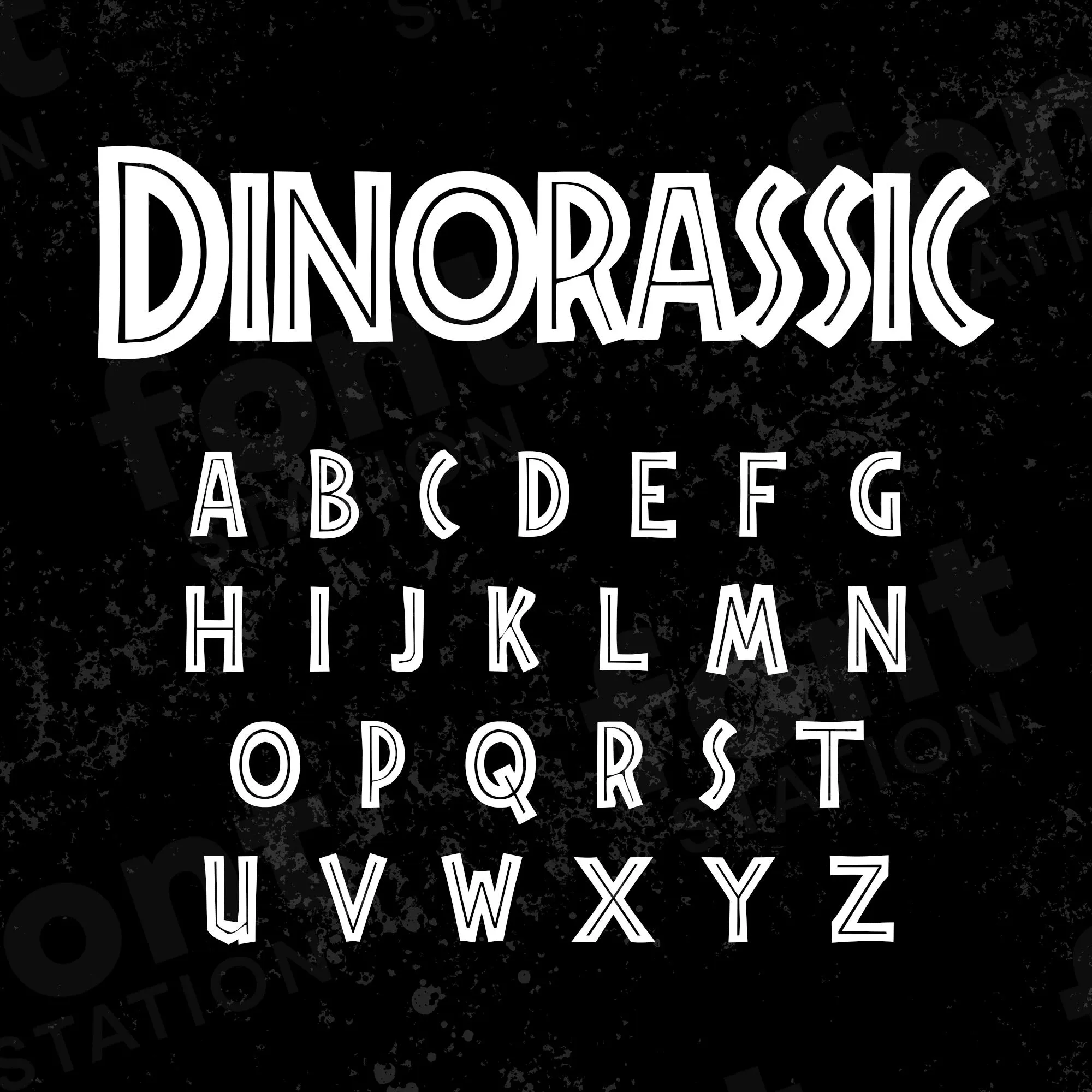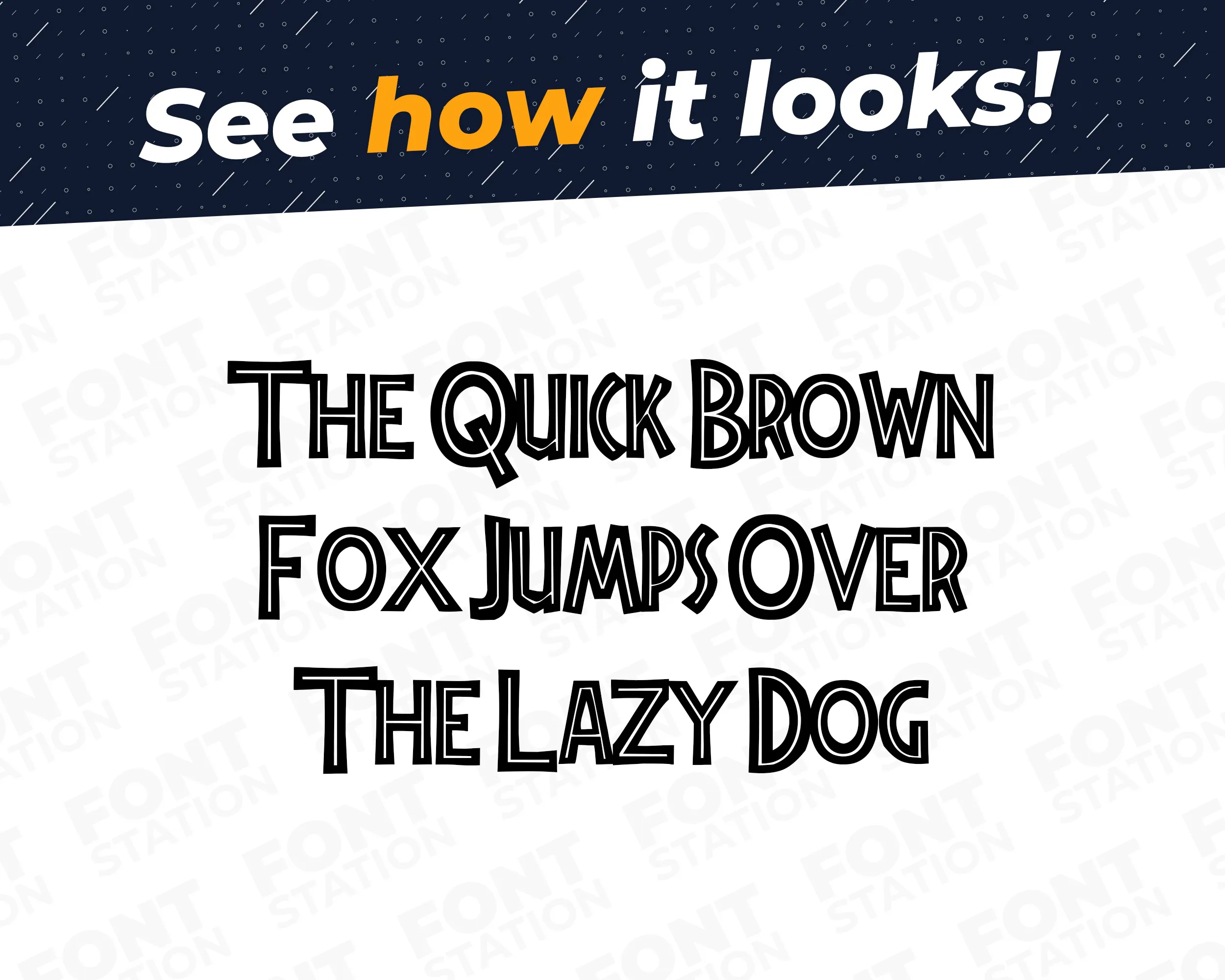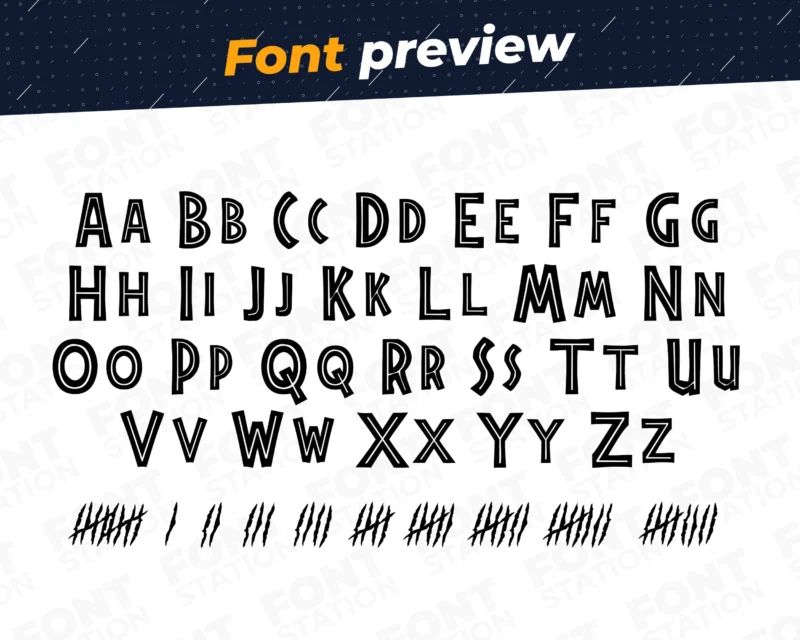
Our Dinorassic World typeface, inspired from Jurassic Park font
Grab your computer, tablet or other device and start creating right now with our Jurassic Park font letters! Our Dinorassic World typography is inspired from Jurassic Park movie font, making it ideal for various digital creations (logo, word…), sublimation, cake toppers, stickers, event decorations, and more.